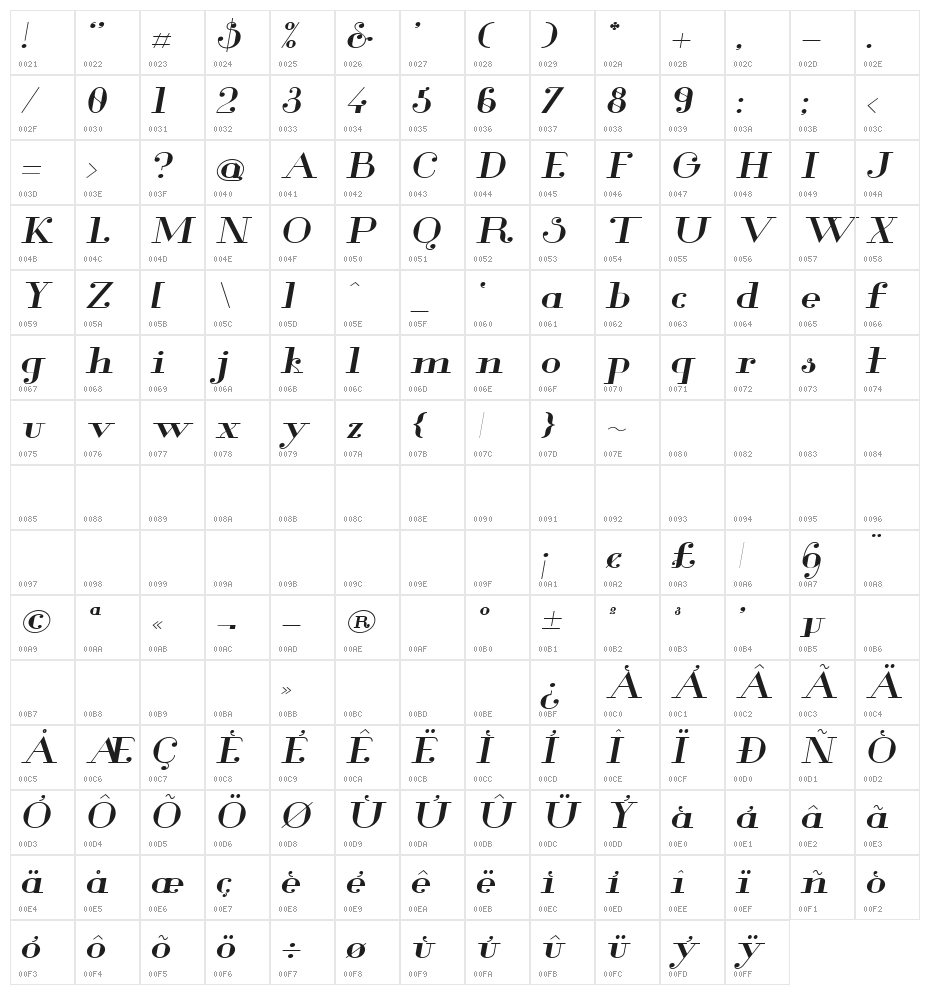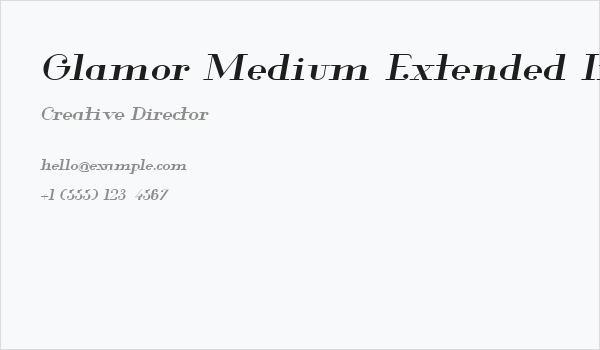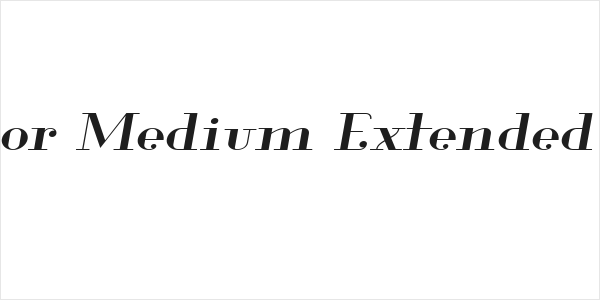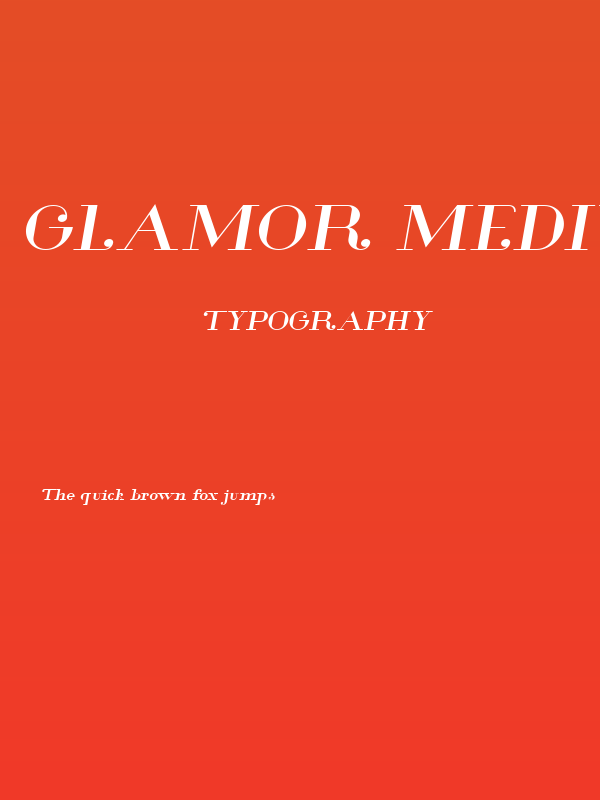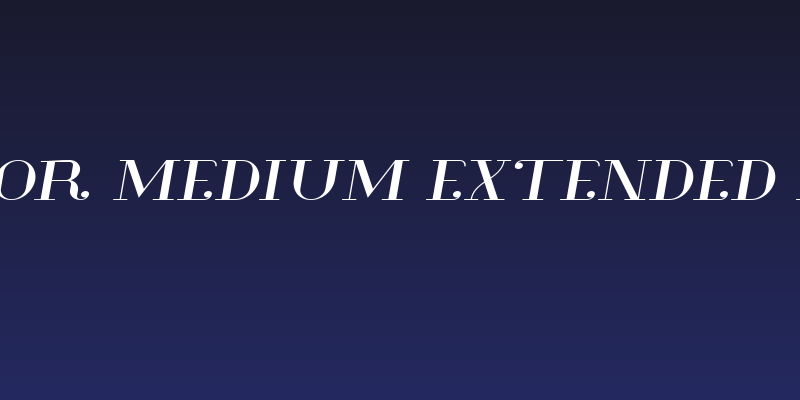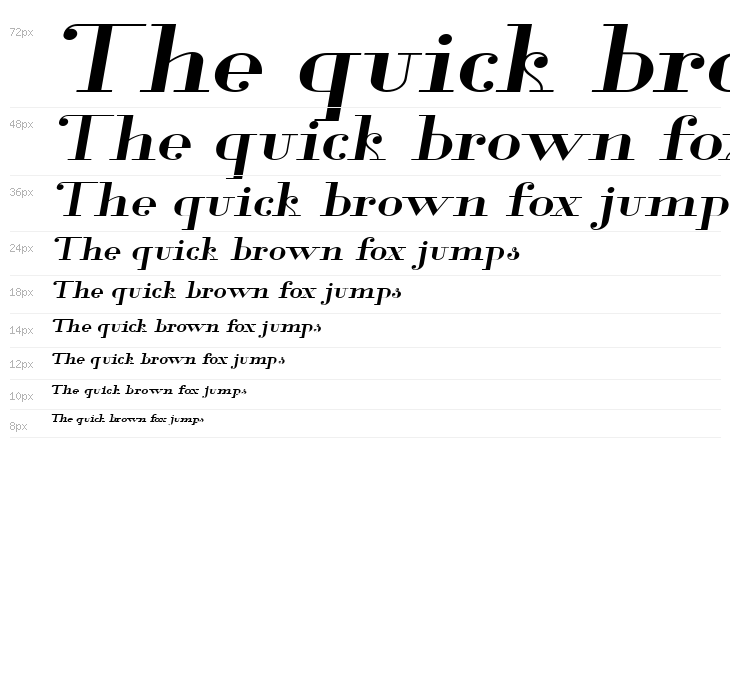
Glamor Medium Extended Italic Font
Glamor Medium Extended Italic Description
This elegant typeface features a sophisticated blend of modern and classic elements, characterized by its medium weight and extended width. The italic style adds a graceful slant to each character, enhancing its refined appearance. The font showcases high contrast between thick and thin strokes, giving it a dramatic and stylish flair. The serifs are sharp and pronounced, contributing to its formal and polished look. The character spacing is normal, ensuring readability while maintaining its decorative appeal. This font is ideal for projects that require a touch of elegance and sophistication.